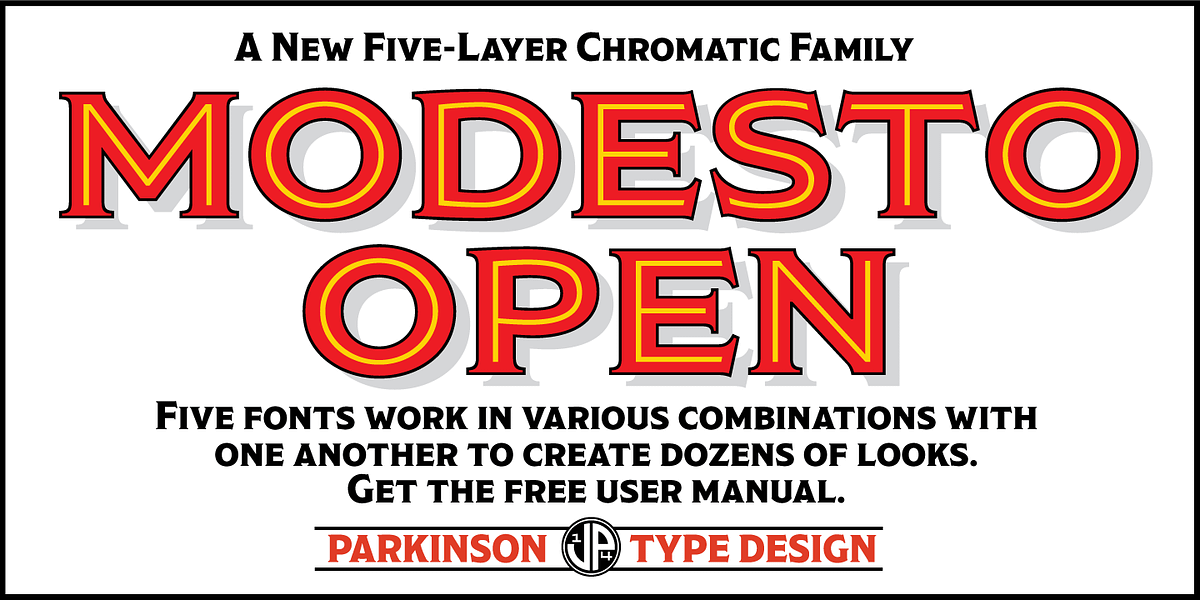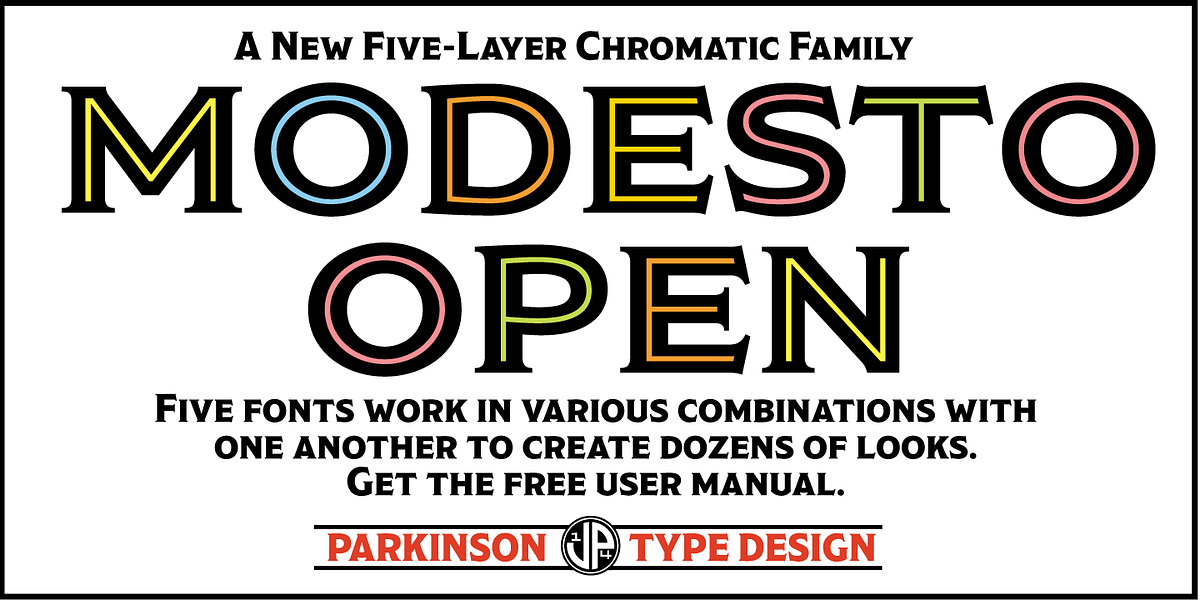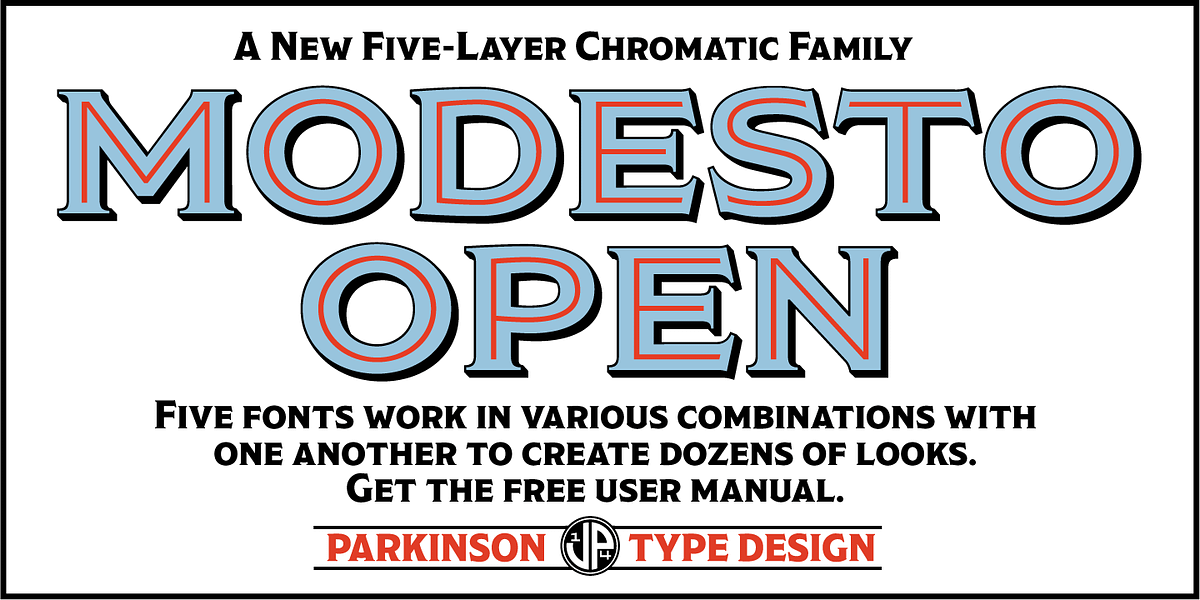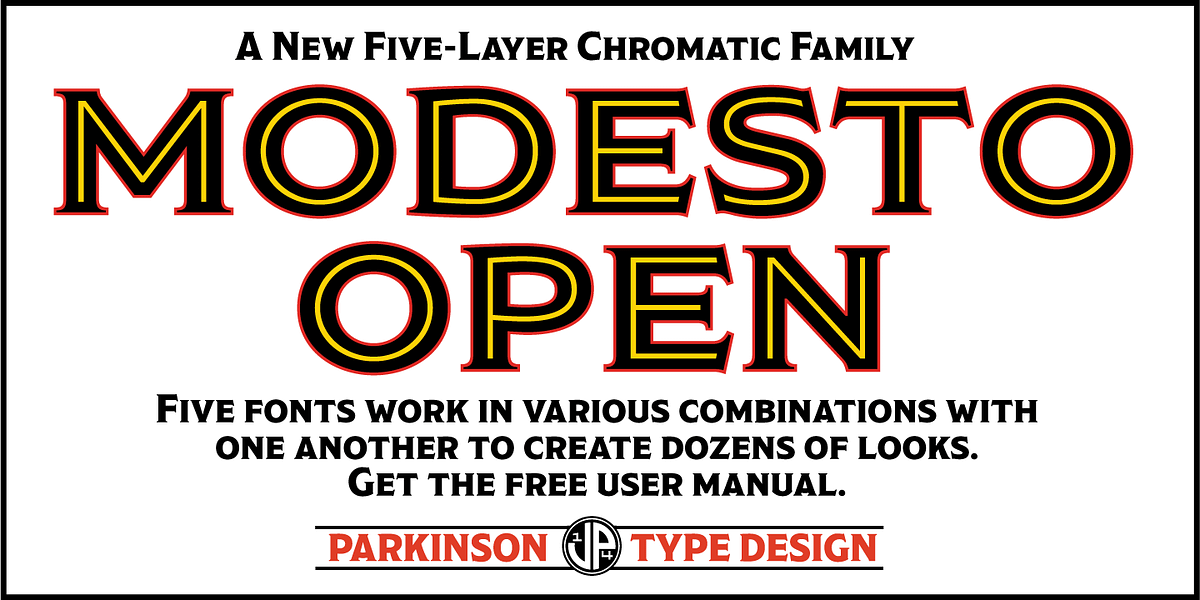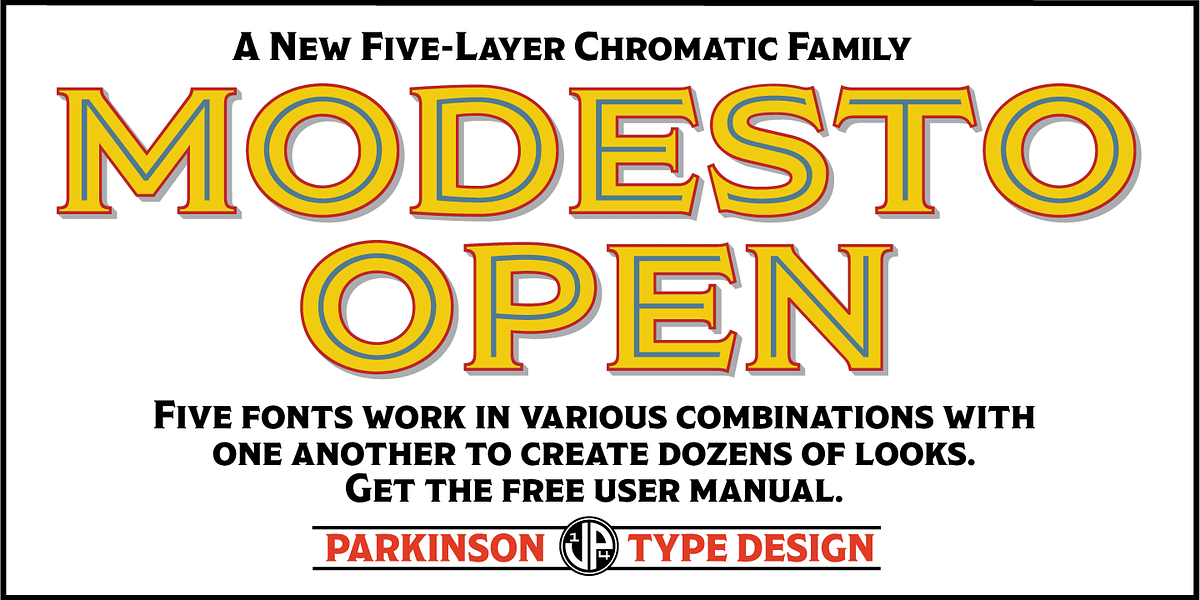
Modesto Open
The Modesto Open font family is a set of five chromatic fonts inspired by the lettering style commonly seen on signs in the late 19th and early 20th centuries. These fonts are designed to be used together in various combinations to create layered and shadowed effects. The original Modesto font was created over fifteen years, evolving from the lettering used for the Ringling Bros. and Barnum & Bailey Circus logo.